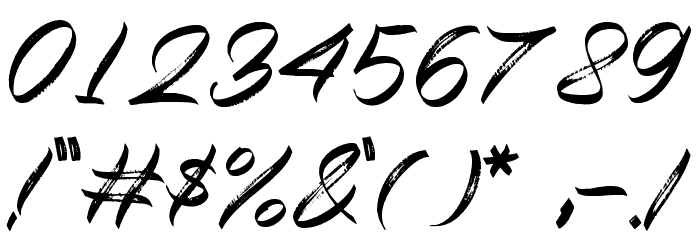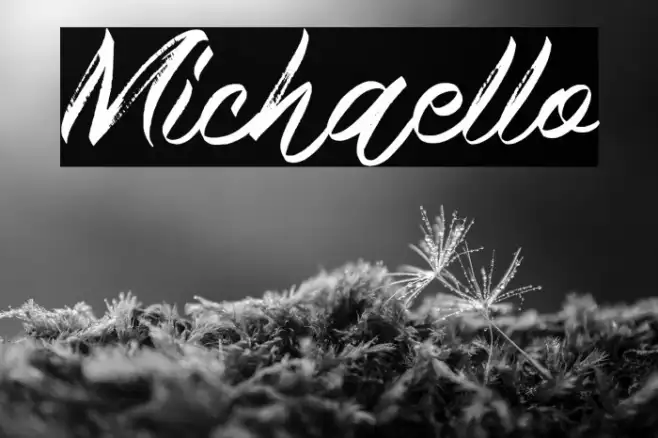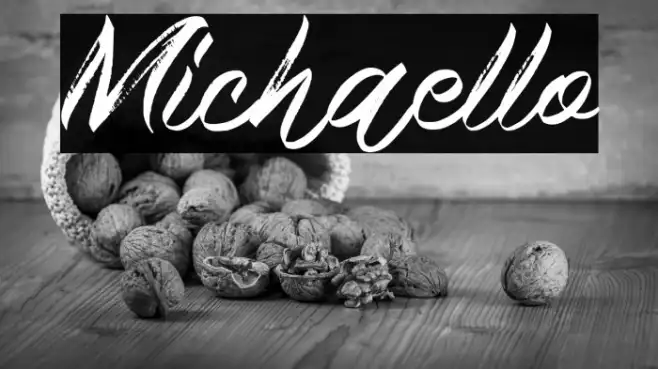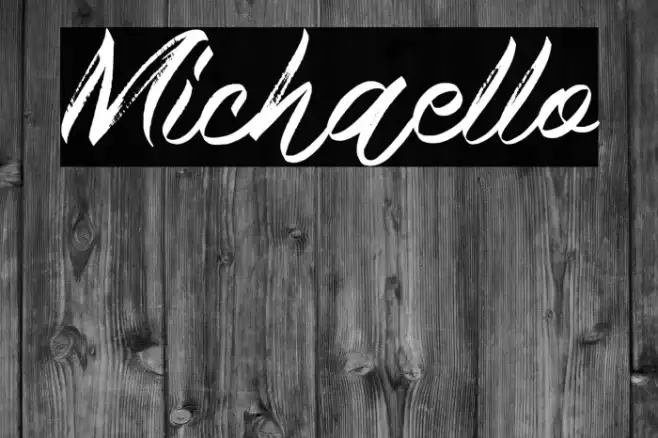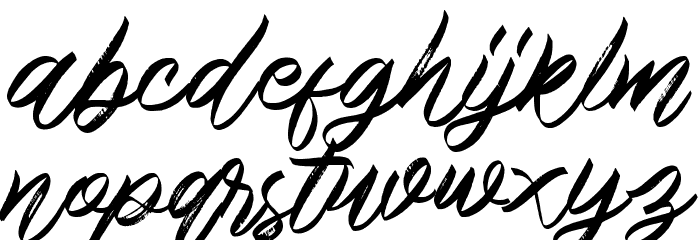
Michaello Font
Michaello Description
This font features a dynamic and expressive brush script style, characterized by its fluid and energetic strokes. The letters exhibit a hand-drawn appearance with varying thickness, creating a sense of movement and spontaneity. The uppercase and lowercase letters maintain a consistent style, with some letters featuring distinctive loops and swashes that enhance the font's artistic flair. The numbers and special characters are equally expressive, maintaining the same brush-like texture. This font is ideal for projects that require a personal touch or a creative, informal aesthetic.
| Proposed Projects | Ideal for branding, packaging, invitations, and creative projects that require a personal and artistic touch. |